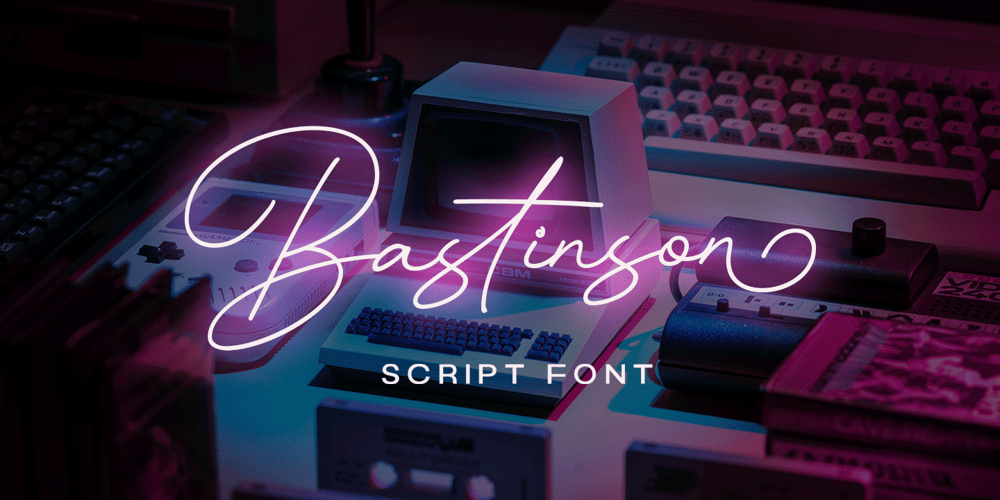
Bastinson
Bastinson font
Bastinson Font Family was designed by Hendry Juanda and published by Letterhend. Bastinson contains 1 styles and family package options. Bastinson is a monoline script with a touch of retro look and feel. Looks great to be paired with bold consendsed sans serif typeface. This type of font perfectly made to be applied especially in logo, headline, signage and the other various formal forms such as invitations, labels, logos, magazines, books, greeting / wedding cards, packaging, fashion, make up, stationery, novels, labels or any type of advertising purpose.Features : uppercase & lowercase numbers and punctuation multilingual alternates / swashes and ligatures PUA encoded We highly recommend using a program that supports OpenType features and Glyphs panels like many of Adobe apps and Corel Draw, so you can see and access all Glyph variations.